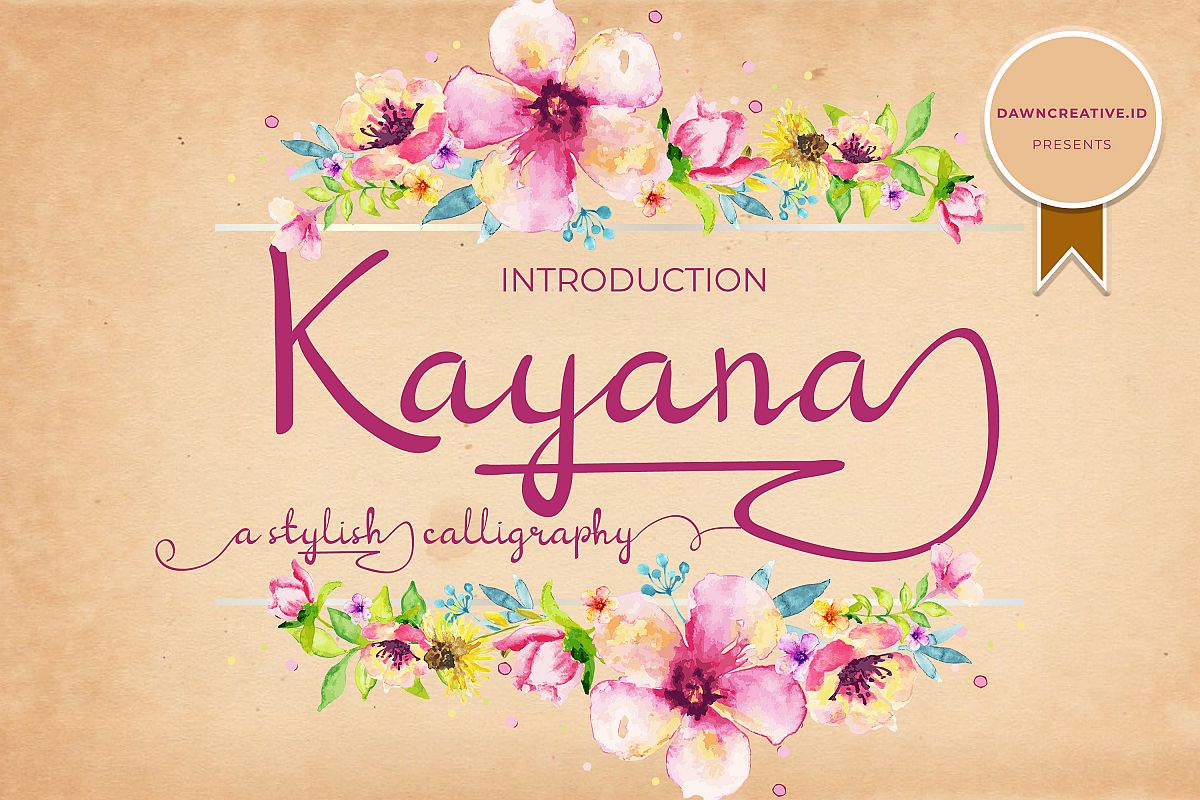
Kayana Script
Kayana-Regular
Kayana is a handwritten font that has unique, modern, elegant and stylistic calligraphy font. It has stylistic alternate characters. It make this font looks elegant, natural, stylish and perfect for any awesome projects that need handwriting taste.
• Stylistic alternate
• Kerning Pairs